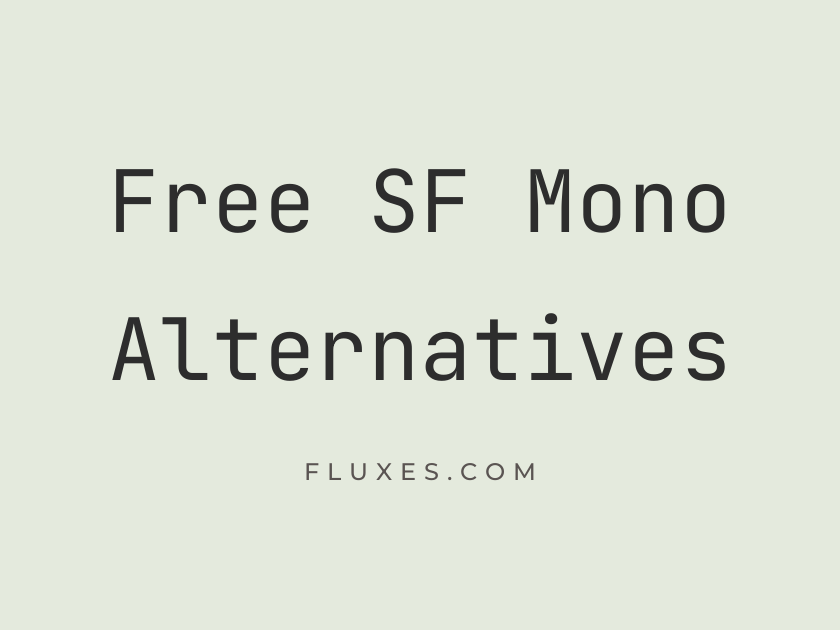
15 Best Free Fonts Alternatives to SF Mono
Apple’s SF Mono ships free with macOS and Xcode, but it never made it to the web as a proper font file you can install anywhere else, which sends a lot of developers and designers looking for a free monospace font that captures the same clean, technical feel. The good news is that Google Fonts has a genuinely strong bench of coding fonts built for exactly this job: crisp letterforms, clear distinction between similar characters like 1, l, and I, and enough weights to handle everything from a terminal theme to a portfolio site’s code blocks. The fonts below cover that range, from near-drop-in replacements to options with a bit more personality for branding work that wants to nod at code culture.
1. JetBrains Mono
Built by JetBrains for its own IDEs, this is probably the closest thing to a spiritual successor to SF Mono in terms of intent: it was designed specifically to reduce eye strain during long coding sessions. The letterforms are slightly taller than average, which helps readability at small sizes in dense editor windows, and the italics are genuinely slanted rather than just obliqued. It pairs naturally with a humanist sans like Inter or Work Sans in developer documentation.
2. Fira Code
Fira Code’s claim to fame is programming ligatures, the way it visually merges character combinations like => or !== into single glyphs when a code editor supports them. That makes it a favorite for screenshots of clean-looking code, though it’s worth turning ligatures off if your audience finds them distracting. Outside of that feature, the underlying letterforms are calm and evenly spaced, based on the earlier Fira Mono.
3. IBM Plex Mono
IBM commissioned Plex Mono as part of a full type system meant to replace Helvetica across its brand, and that corporate discipline shows in how measured and well-balanced every character feels. It has a slightly warmer, more humanist touch than SF Mono, with subtle curves that keep long stretches of code from feeling too mechanical. Because it belongs to a full family with matching sans and serif styles, it’s an easy choice when you need monospace text to sit alongside body copy from the same type system.
4. Roboto Mono
As the monospace companion to Android’s default typeface, Roboto Mono is everywhere in technical documentation and developer tools, which makes it a safe, familiar pick. It reads as neutral and unfussy at body-copy sizes, though some of its rounder details can blur slightly when set very small on low-resolution screens. It’s a dependable match for any project already using Roboto for its interface text.
5. Source Code Pro
Adobe designed Source Code Pro to sit alongside Source Sans Pro, and it carries the same sturdy, slightly condensed practicality. It’s a workhorse rather than a personality font: legible at nearly any size, comfortable in terminal emulators, and unlikely to draw attention to itself in a syntax-highlighted code block. That restraint is exactly what makes it a solid default for technical blogs and API documentation.
6. Inconsolata
One of the earlier open-source monospace fonts built specifically for code, Inconsolata has a narrower, more compact rhythm than most of its modern peers. That tighter spacing makes it useful in situations where horizontal space is tight, like narrow sidebars showing snippets or mobile-friendly code previews. It can look a touch thin at regular weight on lower-resolution displays, so pairing it with a slightly heavier weight for headings helps.
7. Space Mono
Space Mono trades pure utility for character, with quirky curves and a retro, slightly nerdy feel borrowed from vintage electronics and early computer terminals. It’s less suited to dense paragraphs of production code and much better suited to branding moments: a startup’s logotype, a 404 page, or a hero section that wants to look technical without being sterile. The bold weight in particular has a punchy, poster-like presence.
8. Ubuntu Mono
Part of the Ubuntu type family, this font carries the same rounded, friendly personality as its sans-serif sibling, which makes it feel a little warmer and less clinical than SF Mono. It works well in terminal-themed designs or Linux-adjacent branding where a touch of approachability is welcome. At very small sizes some of its rounder curves soften slightly, so it’s better suited to comfortable reading sizes than tiny footnotes.
9. PT Mono
PT Mono has a slightly formal, almost typewriter-adjacent structure that gives it a bit more gravity than typical coding fonts. It suits editorial contexts that want to reference code or data without leaning into a purely technical aesthetic, such as a magazine feature discussing software. Its even stroke weight keeps long strings of numbers and symbols easy to scan.
Test legibility at the sizes you’ll actually use. Some of these fonts hold up beautifully in a full-size code editor but soften at the tiny sizes used for badges or footnotes, so check both extremes before committing.
Any of these free Google Fonts can stand in for SF Mono without asking readers to install anything extra, and most cover the full range from body-size code to bold display use. Pick based on the mood you want, whether that’s the clinical precision of Roboto Mono or the retro character of Space Mono, and the rest of the interface will follow its lead.